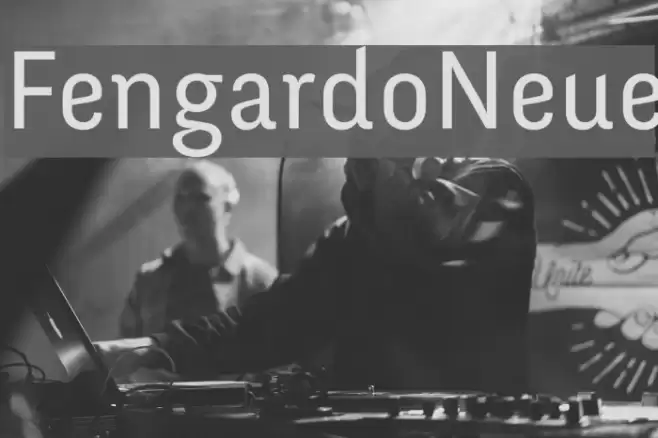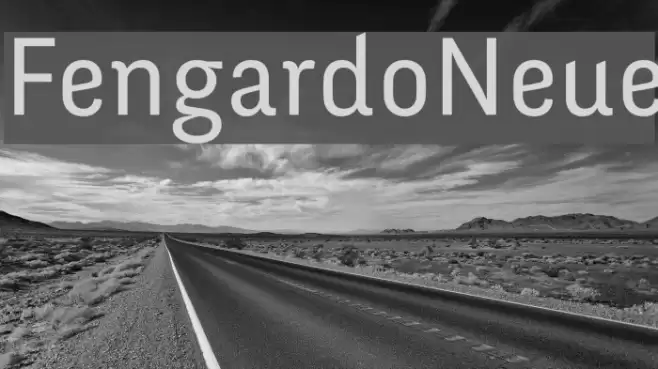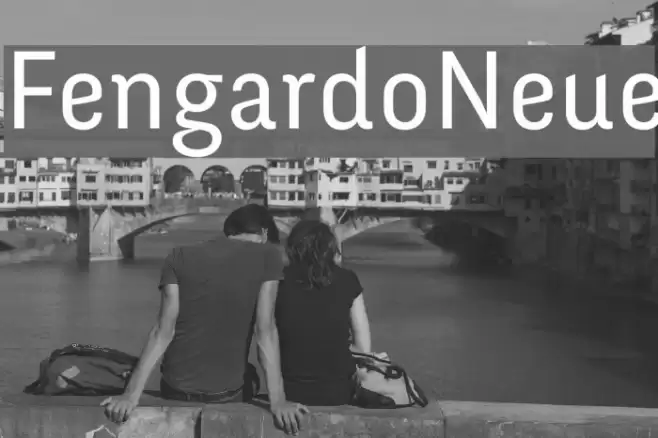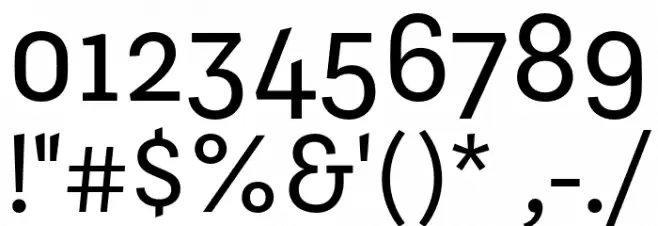
FengardoNeue Font
FengardoNeue Description
This font features a clean and modern sans-serif style with a geometric influence. The characters are well-balanced with a uniform stroke width, providing a sleek and professional appearance. The uppercase letters are bold and assertive, while the lowercase letters maintain a friendly and approachable look. The numerals are clear and easy to read, making them suitable for various applications. Special characters are designed with precision, ensuring consistency across the typeface. Overall, this font is versatile and can be used in a wide range of design projects.
A modern, geometric sans-serif font with a clean and professional look from Uncategorized fonts.
- Proposed Projects: Ideal for branding, web design, advertising, and editorial projects.